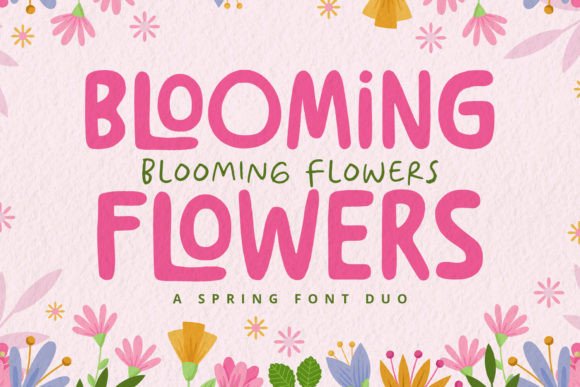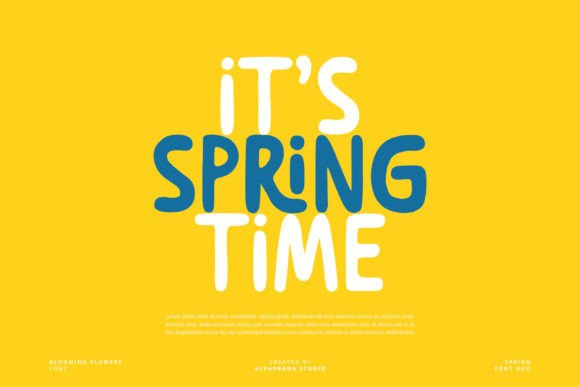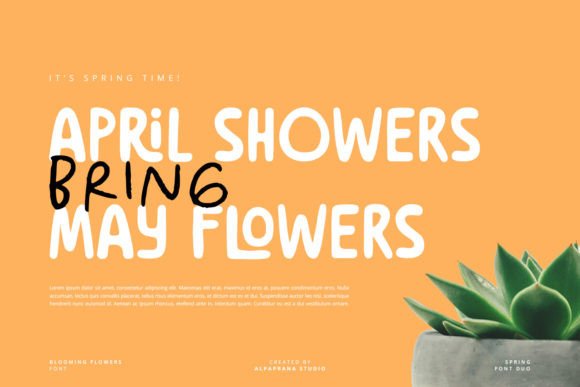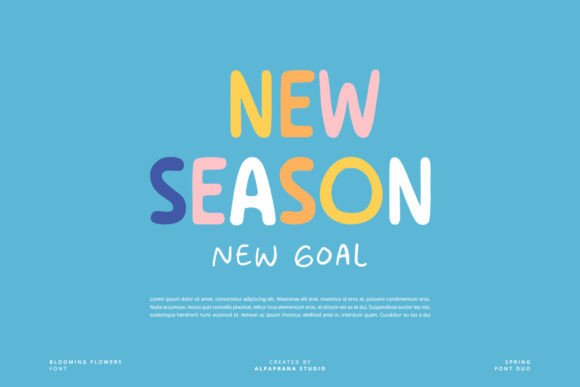
Blooming Flowers Font
About the Blooming Flowers Font
Get ready to be inspired by Blooming Flowers Font, a fresh and dynamic typeface for modern creators. Blooming Flowers is a font duo with authentic and cute feels. It will be perfectly used for Branding, Logo Design, Lettering, Logotype, Clothing, Posters, magazines, packaging, posters, shopping bags, t-shirts, book covers, photography, special events, and other design projects.
Blooming Flowers excels in display applications such as logos, headlines, and short-form text on packaging or posters. Its charming character is ideal for brands targeting a youthful or feminine demographic, particularly those in fashion, beauty, or food industries. Avoid using it for extended body copy or UI elements; its decorative nature compromises readability in smaller sizes or continuous text.
Pairing Blooming Flowers with a clean sans-serif like Montserrat or a more geometric font such as Futura provides a sophisticated contrast, balancing its playful energy with a touch of modern simplicity. For a softer feel, consider pairing it with a delicate script font, but ensure sufficient contrast for legibility.
The font’s overall personality is best described as cheerful and approachable, leaning towards a playful aesthetic without being overly childish. Its slightly informal character makes it unsuitable for projects requiring a high degree of formality or professionalism.
Blooming Flowers Font Usage Examples
Blooming Flowers Font Example